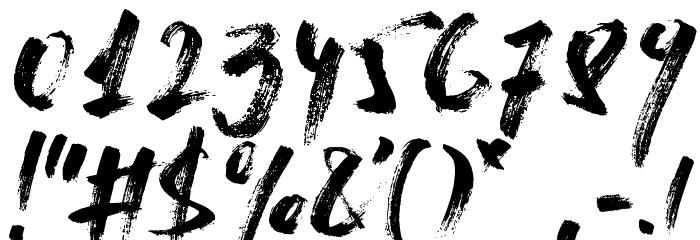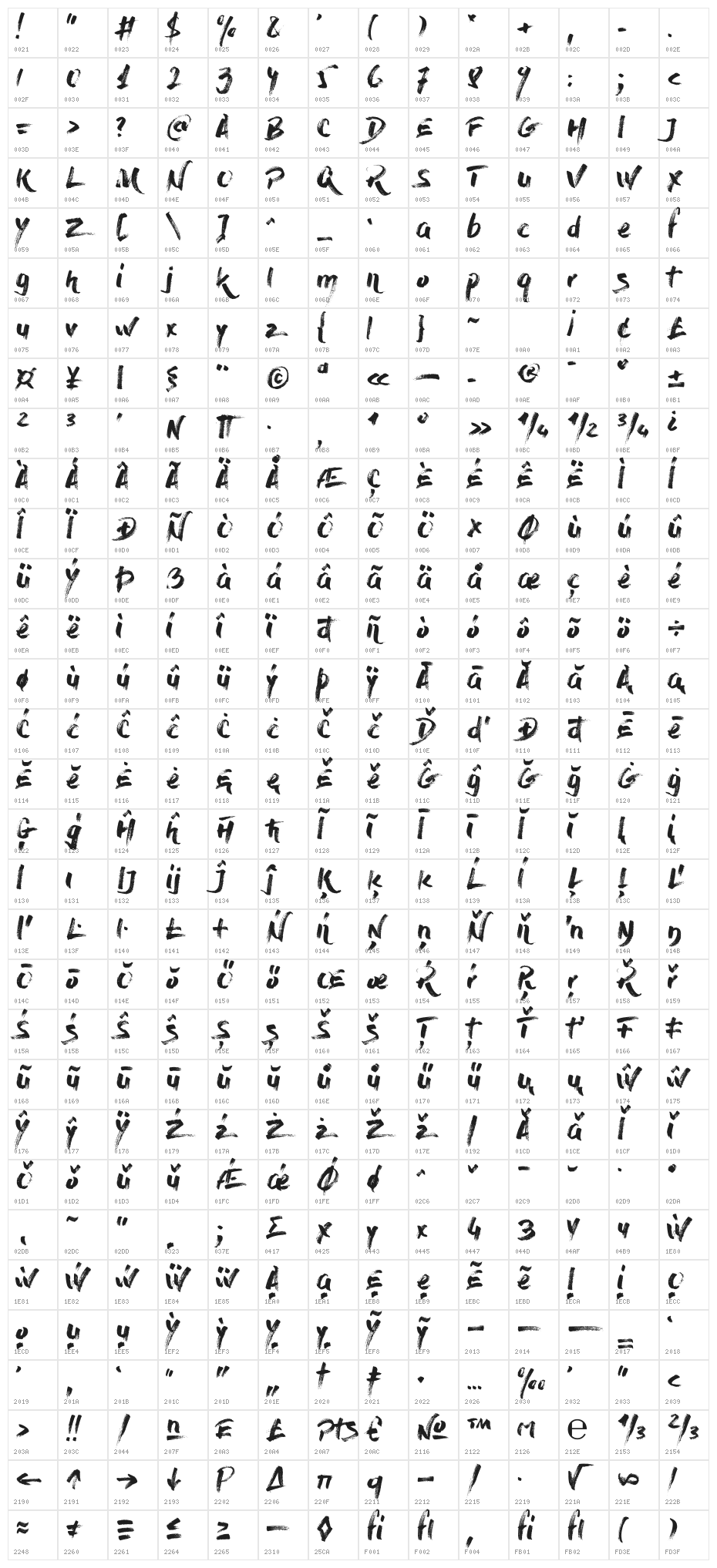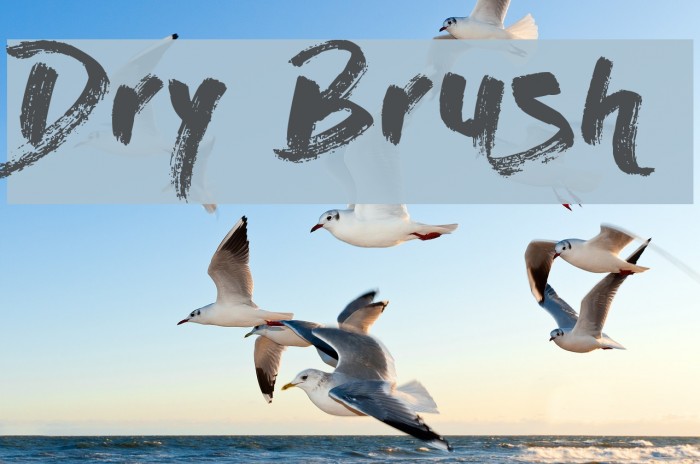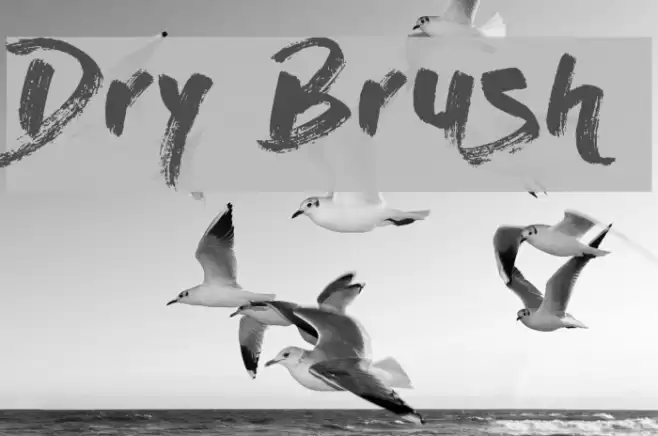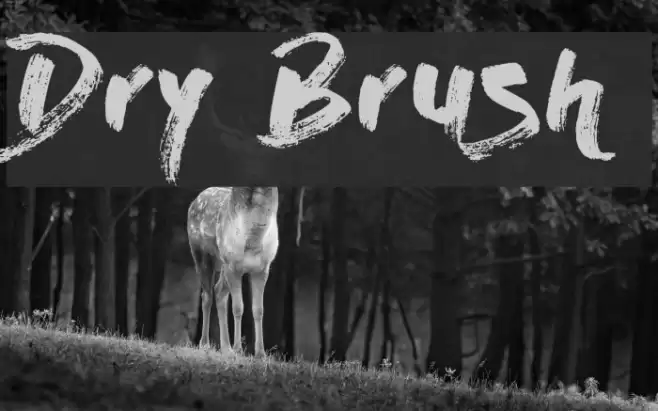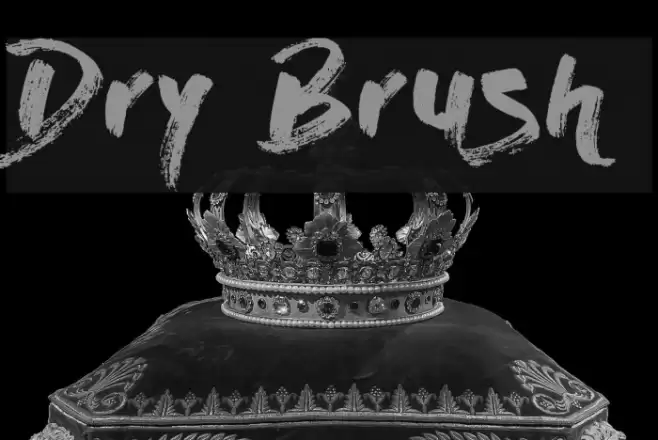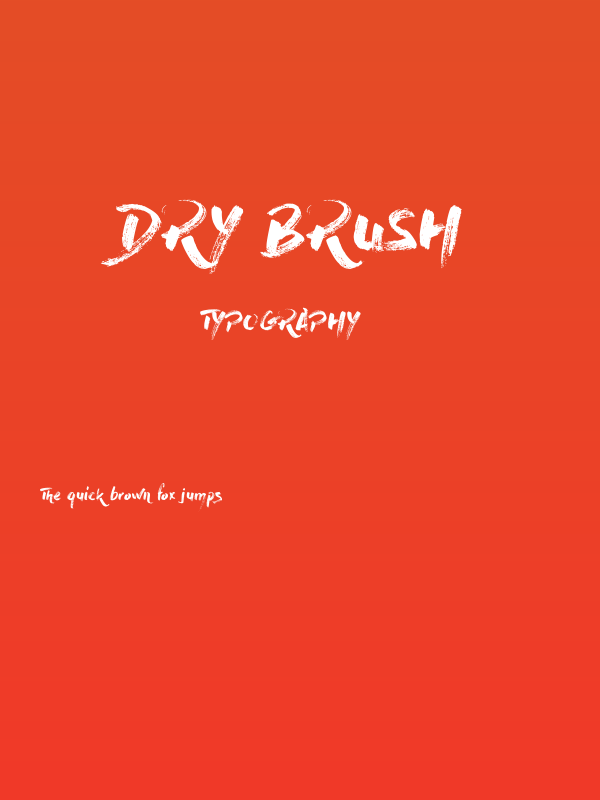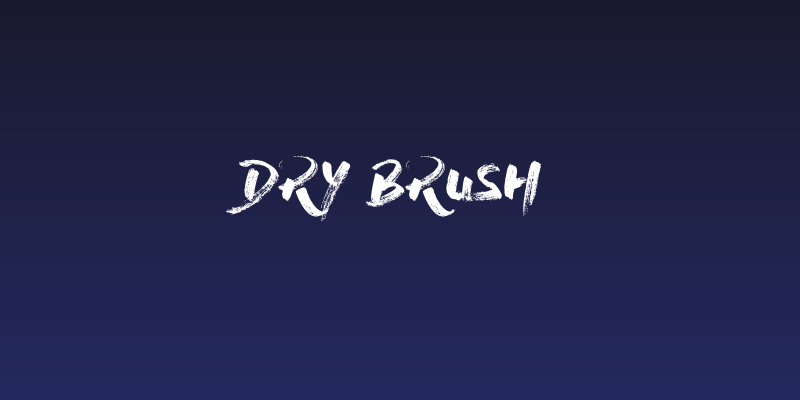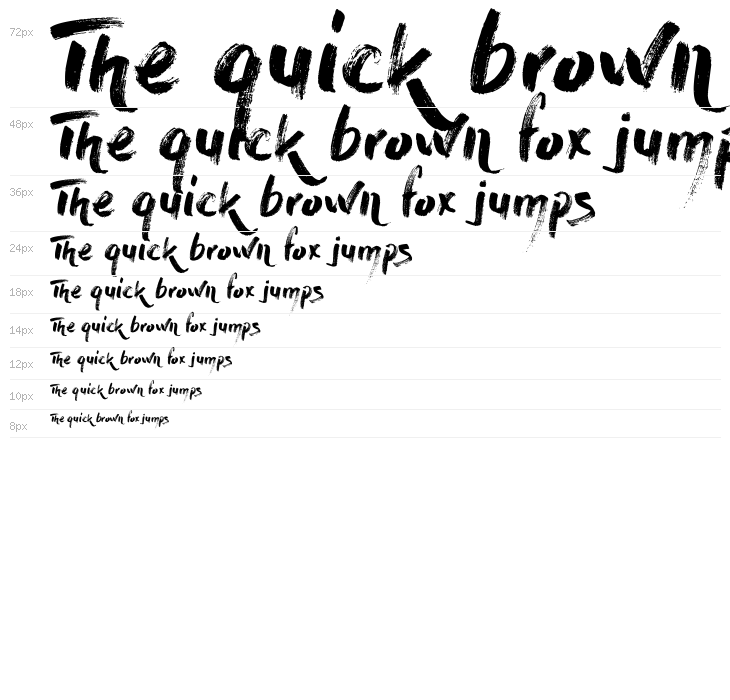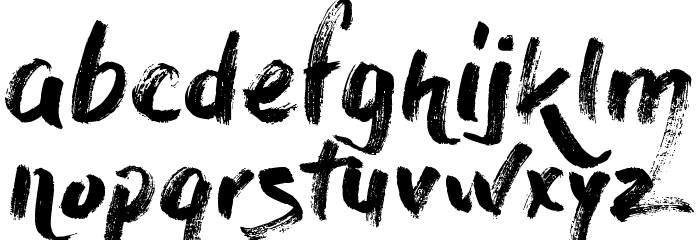
Dry Brush Font
Dry Brush Description
This expressive font captures the raw, energetic strokes of a dry brush, creating a dynamic and artistic appearance. Each character is uniquely textured, with uneven edges and varying thickness that mimic the natural flow of hand-painted lettering. The uppercase and lowercase letters maintain a consistent style, while the numbers and special characters add to the font's versatility. The overall effect is bold and impactful, making it ideal for projects that require a touch of creativity and individuality. Its organic feel and artistic flair make it suitable for a range of design applications.
| Proposed Projects | Ideal for posters, album covers, artistic branding, and creative advertising. |